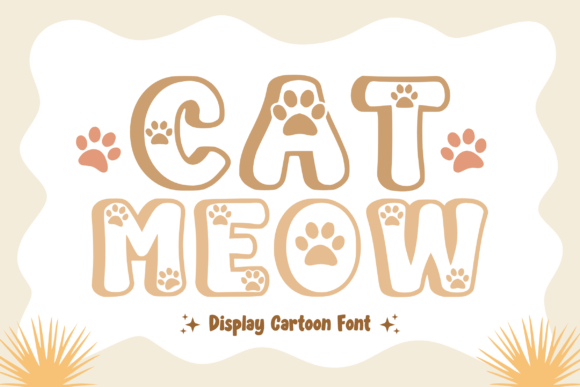
Unleash Your Creativity with Cat Meow Font: A Playful Typeface for Modern Designs
In the world of typography, fonts play a crucial role in bringing ideas to life. A well-crafted font can elevate a design, making it more engaging, memorable, and visually appealing. Today, we’re excited to introduce “Cat Meow,” a contemporary font that’s sure to delight designers, artists, and crafty enthusiasts alike. This charming typeface is enriched with endearing feline characters, each combined with a cute cat paw icon, making it easy to identify and perfect for a wide range of creative projects.
What Makes Cat Meow Font So Special?
- Unique Character Design: Each character in the Cat Meow font is ingeniously combined with a charming cat paw icon, giving it a distinctive and recognizable look.
- Playful Spirit: The font’s playful and quirky nature makes it ideal for designs that require a lighthearted and humorous touch.
- Versatility: Cat Meow font can be used for a variety of projects, including sublimation designs for apparel, ceramic accessories, animations, and comic titles.
Endless Design Possibilities with Cat Meow Font
The Cat Meow font is perfect for designers looking to add a touch of whimsy to their creations. Here are some design ideas to get you started:
- Sublimation Designs for Apparel: Use Cat Meow font to create fun and quirky designs for t-shirts, tote bags, and other fabric products.
- Ceramic Accessories: Add a playful touch to mugs, ceramic plates, and other home decor items with Cat Meow font.
- Animations: Bring your animations to life with the Cat Meow font, perfect for explainer videos, cartoons, and more.
- Comic Titles: Use Cat Meow font to add a playful spirit to your comic titles, making them more engaging and eye-catching.
Tips and Tricks for Working with Cat Meow Font
To get the most out of the Cat Meow font, here are some tips and tricks to keep in mind:
- Experiment with Colors: Play around with different color combinations to find the perfect match for your design.
- Mix and Match: Combine Cat Meow font with other fonts to create a unique and visually appealing design.
- Keep it Simple: Don’t overcomplicate your design – sometimes, less is more, and the simplicity of the Cat Meow font is its best feature.
In conclusion, the Cat Meow font is a versatile and playful typeface that’s perfect for designers, artists, and crafty enthusiasts looking to add a touch of whimsy to their creations. With its unique character design, playful spirit, and endless design possibilities, Cat Meow font is sure to inspire your next project. Thank you for your continued support, and we look forward to bringing you more novel and unique fonts in the future!